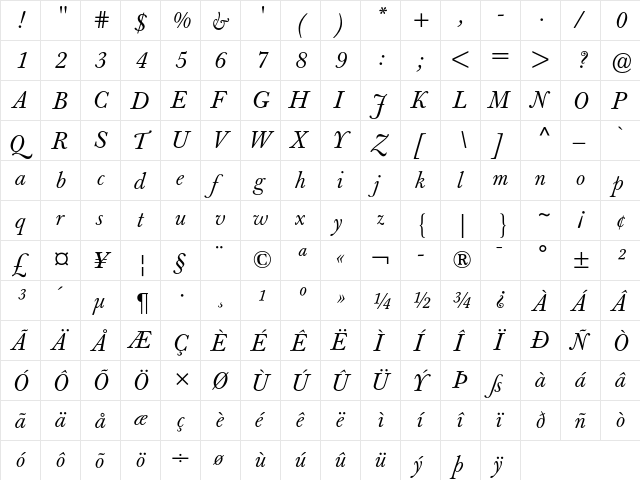
Berthold Baskerville Book Italic
Design Context for Berthold Baskerville Book Typeface
Berthold Baskerville Book offers clean, dependable letterforms without strong stylistic allegiance, making it a practical choice for designers who need flexibility. The slanted form adds forward momentum and visual energy.
Pro Tip: Try Berthold Baskerville Book for annotation and caption copy alongside an upright companion — the contrast in angle creates a dynamic but ordered typographic system.